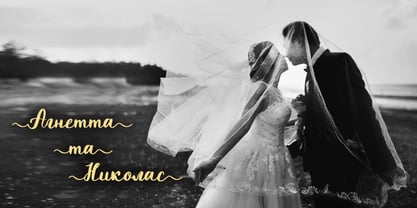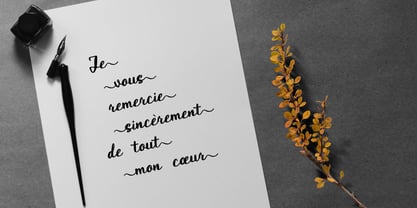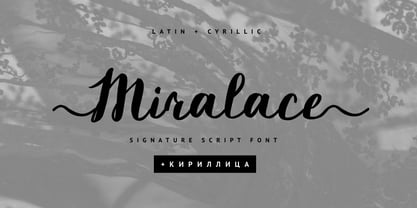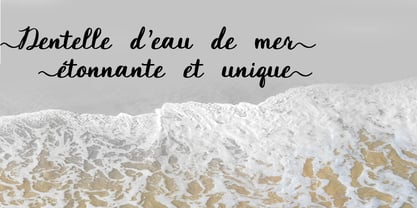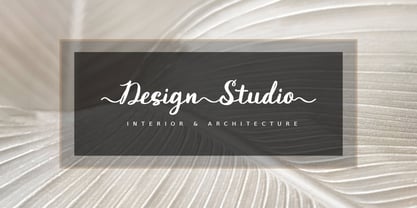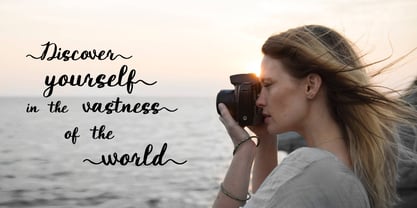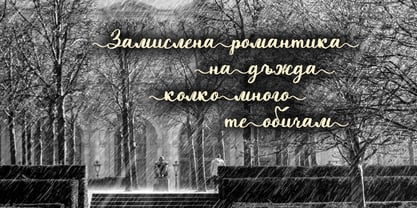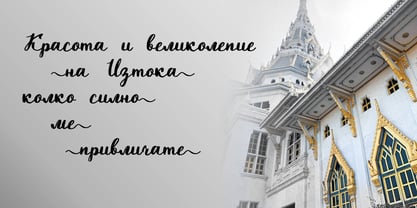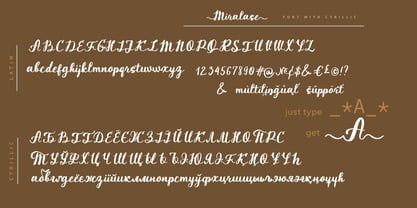
Miralace Cyrillic
Die Schriftfamilie Miralace Cyrillic wurde von Iryna Dviliuk entworfen und von Ira Dvilyuk veröffentlicht. Miralace Cyrillic enthält 1 Stile. Mehr über diese Familie
Miralace Cyrillic script font is a pretty brush pen bold font that will look gorgeous on all your designs, wedding stationery, love stories, branding materials, logos, pretty teenage stickers, business and wedding cards, calligraphy Insta quotes, elegant fashion sketches, calligraphy love monograms and much more. Miralace playful script font contains the Cyrillic glyphs too. Multilingual Support for 31 languages: Latin glyphs for Afrikaans, Albanian, Basque, Bosnian, Catalan, Danish, Dutch, English, Estonian, Faroese, Filipino, Finnish, French, Galician, Indonesian, Irish, Italian, Malay, Norwegian Bokmål, Portuguese, Slovenian, Spanish, Swahili, Swedish, Turkish, Welsh, Zulu. And Cyrillic glyphs support Ukrainian, Belorussian, Bulgarian, Russian Mongolian and Kazakh languages. Works perfectly on the Canva platform. For Cricut & Silhouette, it is recommended. Thanks!